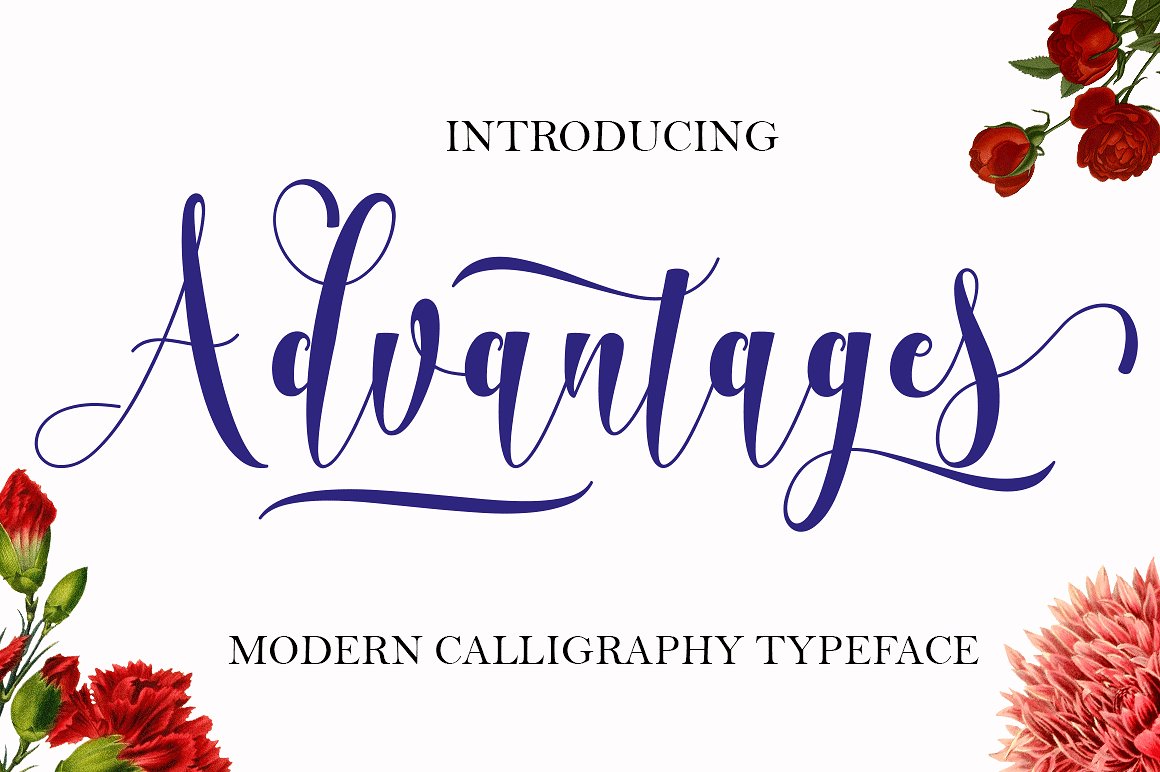
Advantages Script Font
Advantages Modern Calligraphy. This font was designed by handwriting, and it has a modern and unique forms of calligraphy, the writing style is very natural.
| Designer Name: | Jhoen |
| Classification: | Calligraphy Fonts, Handwritten Fonts, Script Fonts |